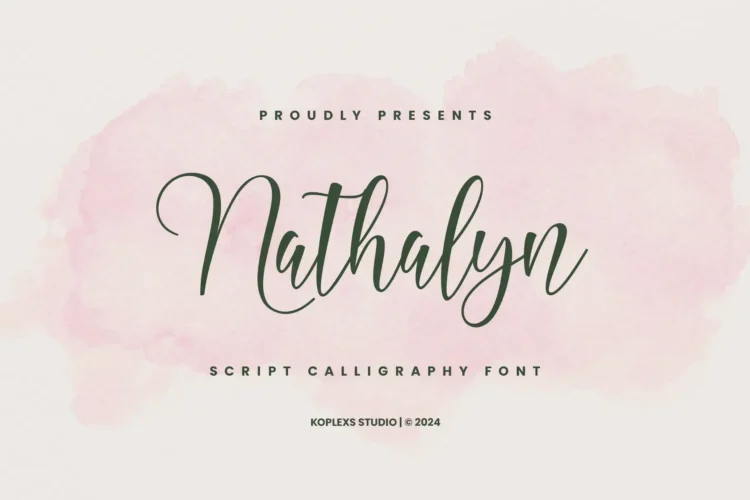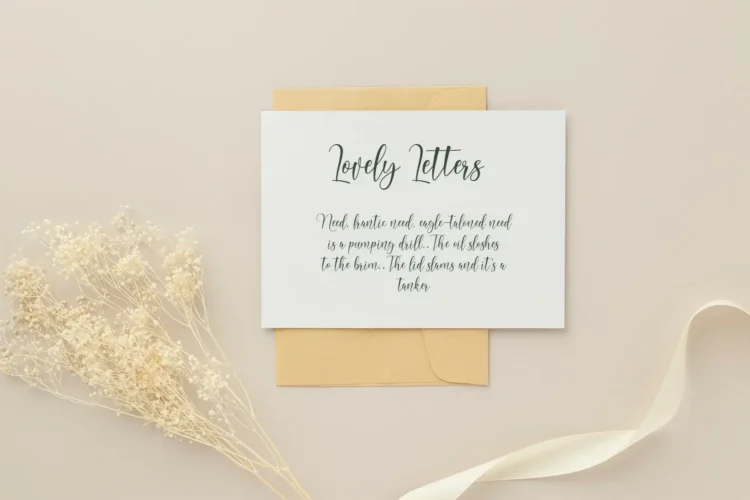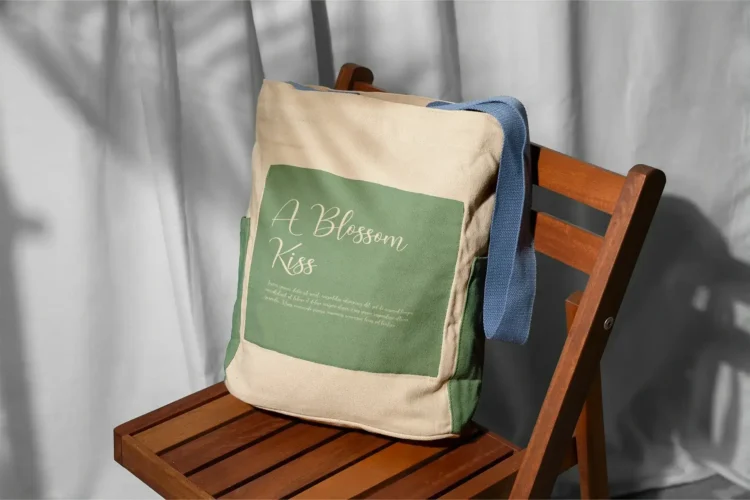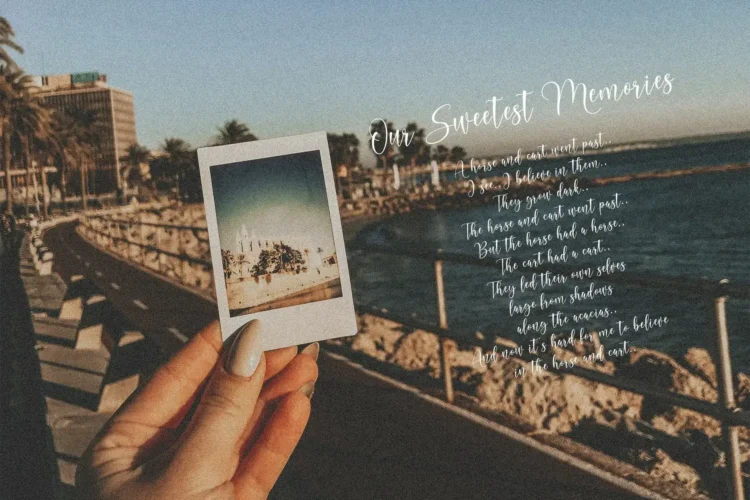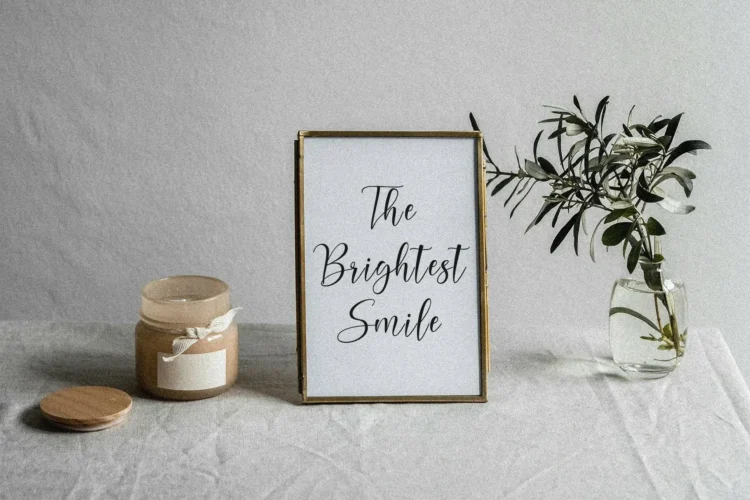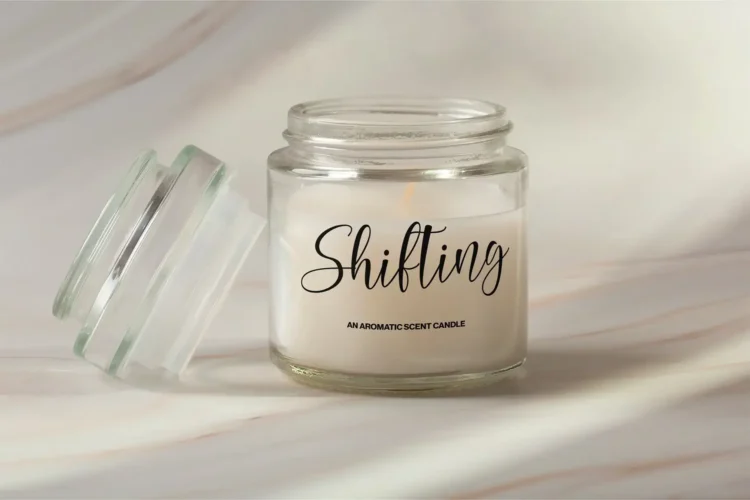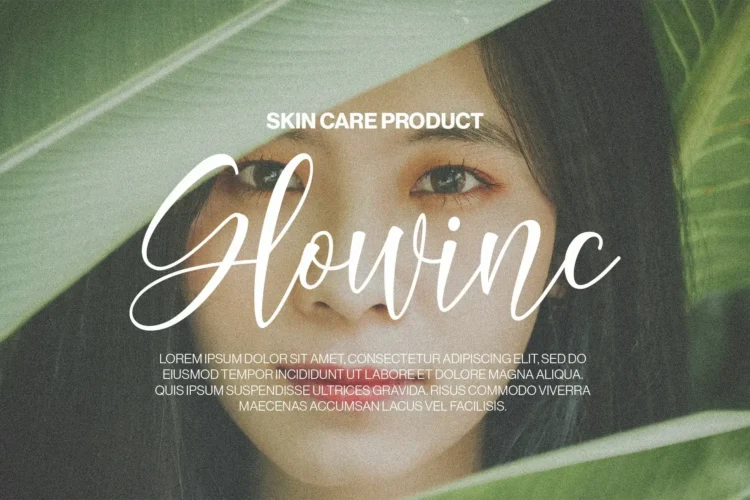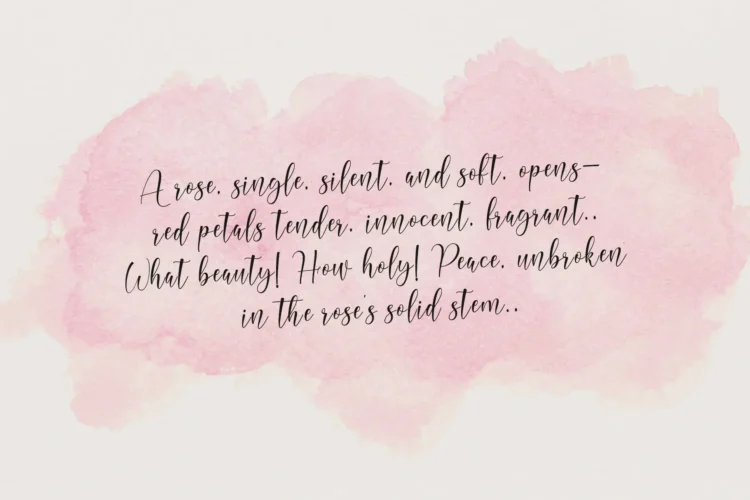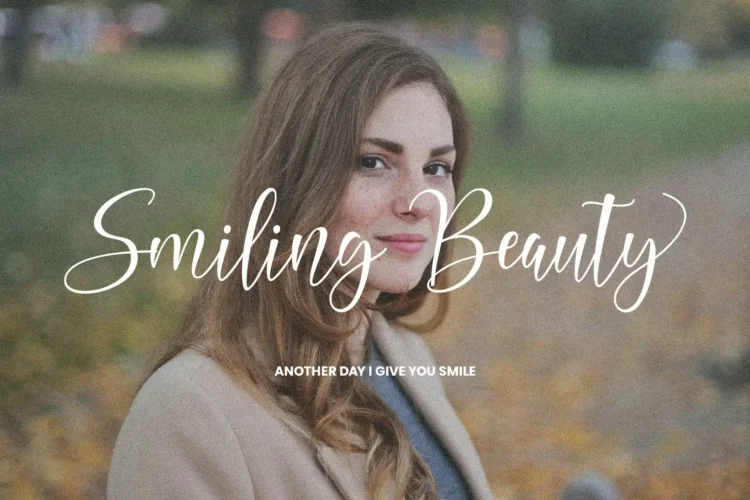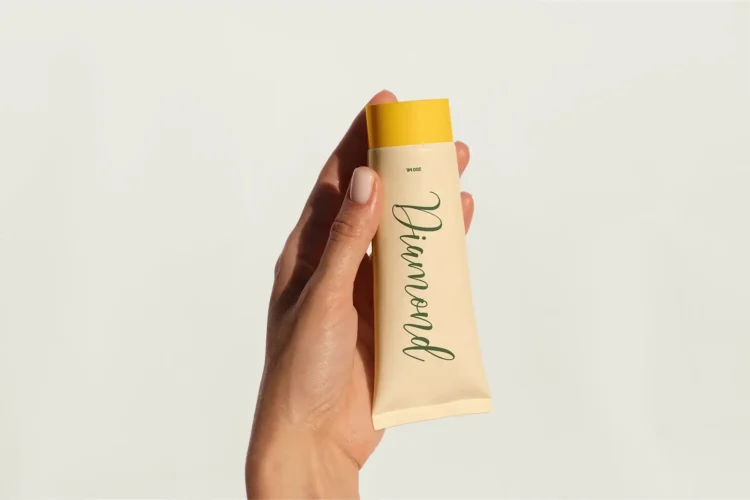
Nathalyn Font – Elegant Script Calligraphy Font for Branding, Wedding & Luxury Designs
Nathalyn Font is a modern script font that blends timeless elegance with contemporary aesthetics. Designed with graceful curves and smooth strokes, this handwritten font typeface is perfect for creating stunning designs that exude sophistication. Whether you need a signature font for branding, a wedding font for invitations, or an aesthetic font for cosmetic packaging, Nathalyn brings your creative ideas to life with beauty and charm.
Crafted with cursive typography and capital cursive letters, Nathalyn is more than just a cursive font it’s a versatile design tool. Its natural handwritten style makes it ideal for logos, stationery, product packaging, posters, and even social media content. From fancy cursive letters to professional script lettering fonts, Nathalyn ensures every word looks stylish, modern, and unique.
Nathalyn Font Perfect for :
Nathalyn Font is versatile and works beautifully for :
- ✨ Wedding invitations & bridal stationery
- 💄 Cosmetic & skincare branding font
- 🎨 Logos, signatures, and business branding
- 📖 Books, magazines, and aesthetic typography
- 🕊️ Luxury designs & elegant calligraphy projects
- 🎉 Event invitations, posters, and greeting cards
- 💻 Social media posts & digital branding
With Nathalyn, you get the perfect balance between modern script fonts, handwritten calligraphy fonts, and luxury cursive fonts. It works beautifully as a logo font, a handwritten script font, or even a retro script font depending on your creative vision.
If you’re looking for the best script fonts that combine beauty, readability, and versatility, Nathalyn is your perfect match.